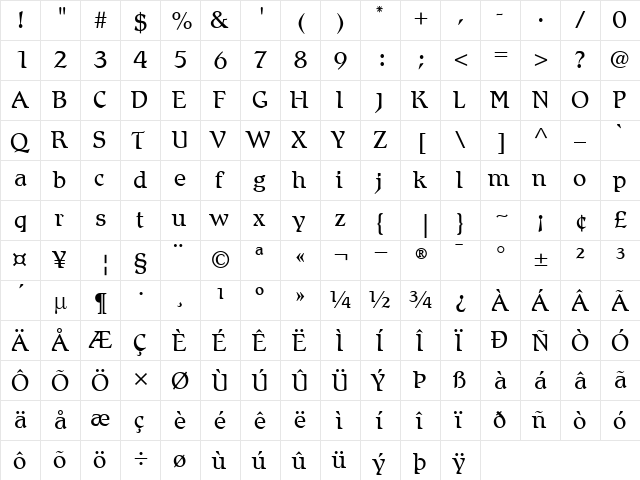
Romic-Light Light Font Preview
Romic-Light Light
Design Context for Romic-Light Typeface
Romic-Light is a composed and adaptable typeface that performs quietly and consistently across a wide range of design contexts. Its slender proportions lend an understated elegance to any composition.